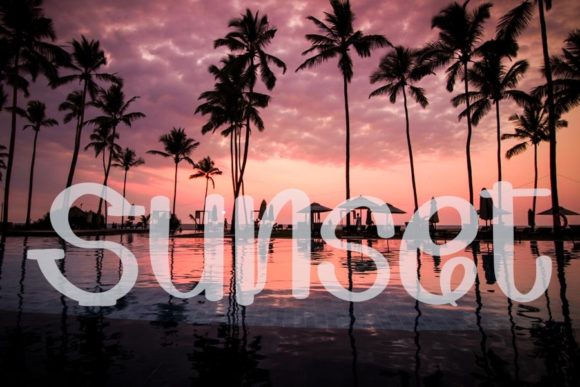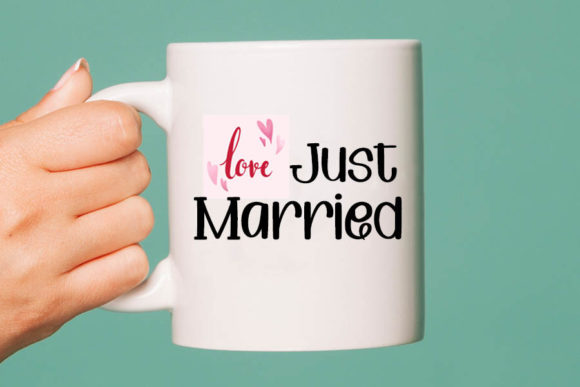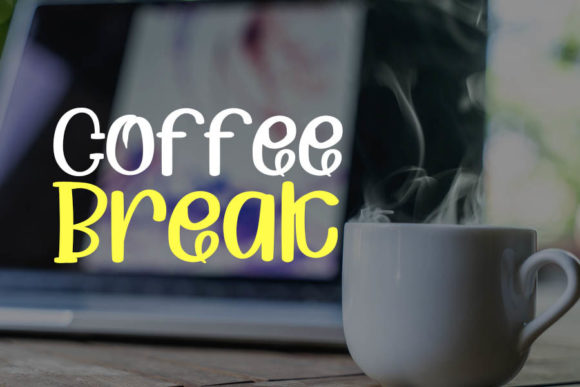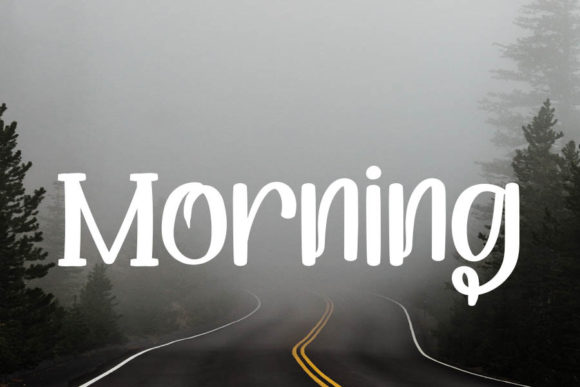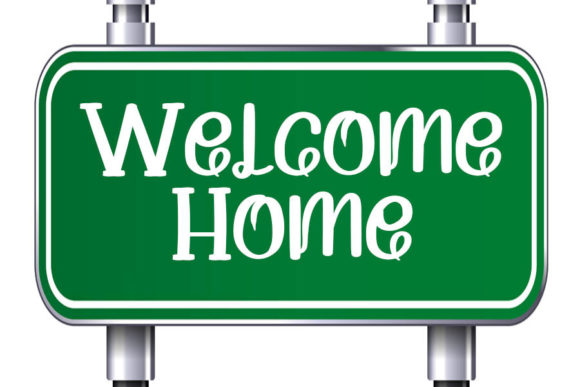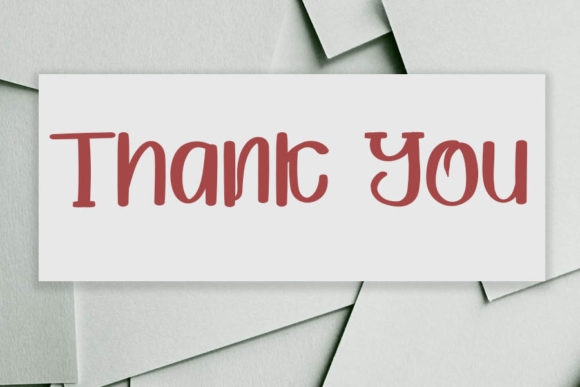
Introducing Happy Summer Font: The Perfect Addition to Your Design Arsenal
Are you tired of using the same old fonts in your designs? Look no further! Happy Summer Font is here to bring a breath of fresh air to your creative projects. This sweet and relaxed serif font is perfect for designers and crafters looking to add a touch of warmth and personality to their work.
The Unique Style of Happy Summer Font
Happy Summer Font boasts a natural and unique style that makes it incredibly versatile. Its serif design gives it a classic and timeless feel, while its relaxed and sweet tone adds a touch of modernity. This font is perfect for a wide range of designs, from rustic and vintage-inspired projects to modern and minimalist ones.
What Makes Happy Summer Font So Special?
- Natural and Unique Style: Happy Summer Font has a one-of-a-kind design that sets it apart from other fonts. Its natural and relaxed style makes it perfect for designs that require a personal touch.
- Versatility: This font can be used in a variety of designs, from rustic and vintage-inspired projects to modern and minimalist ones. Its versatility makes it a great addition to any designer’s arsenal.
- Easy to Read: Happy Summer Font is designed to be easy to read, making it perfect for body text, headings, and titles.
- High-Quality Design: This font is designed with high-quality craftsmanship in mind. Its intricate details and smooth lines make it a joy to use in any design.
How to Use Happy Summer Font in Your Designs
Happy Summer Font can be used in a variety of design projects, including:
- Branding and Packaging: Use Happy Summer Font to add a personal touch to your brand’s packaging and marketing materials.
- Web Design: This font is perfect for web design projects, including website headers, titles, and body text.
- Print Design: Happy Summer Font can be used in a variety of print design projects, including brochures, flyers, and posters.
- Crafting and DIY Projects: This font is also perfect for crafters and DIY enthusiasts who want to add a personal touch to their projects.
Why Designers and Crafters Love Happy Summer Font
Designers and crafters love Happy Summer Font for its unique style, versatility, and ease of use. Here are just a few reasons why:
- Unique Style: Happy Summer Font has a unique style that sets it apart from other fonts. Designers and crafters love using it to add a personal touch to their projects.
- High-Quality Design: Happy Summer Font is designed with high-quality craftsmanship in mind. Its intricate details and smooth lines make it a joy to use in any design.
In conclusion, Happy Summer Font is a sweet and relaxed serif font that is perfect for designers and crafters looking to add a touch of warmth and personality to their projects. Its natural and unique style makes it incredibly versatile, and its ease of use makes it a great addition to any designer’s arsenal. Whether you’re working on a branding project, web design, print design, or crafting and DIY project, Happy Summer Font is sure to bring your projects to the highest levels!